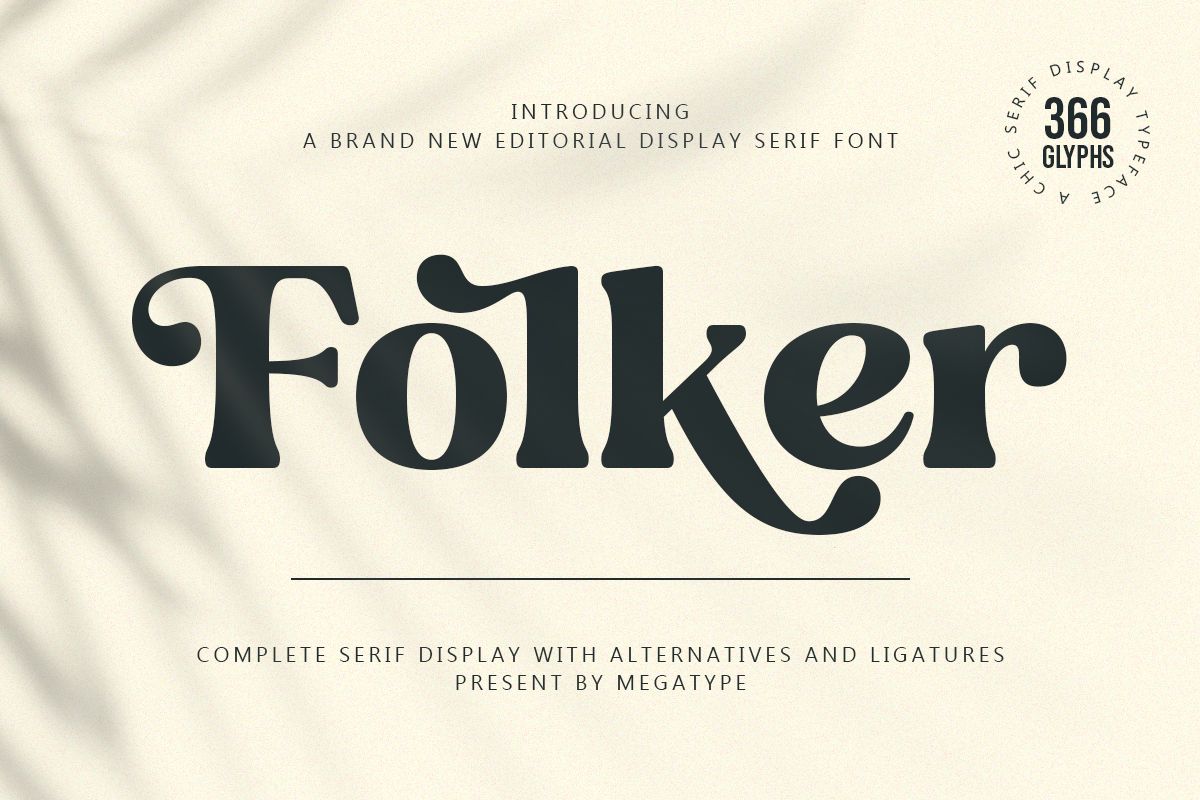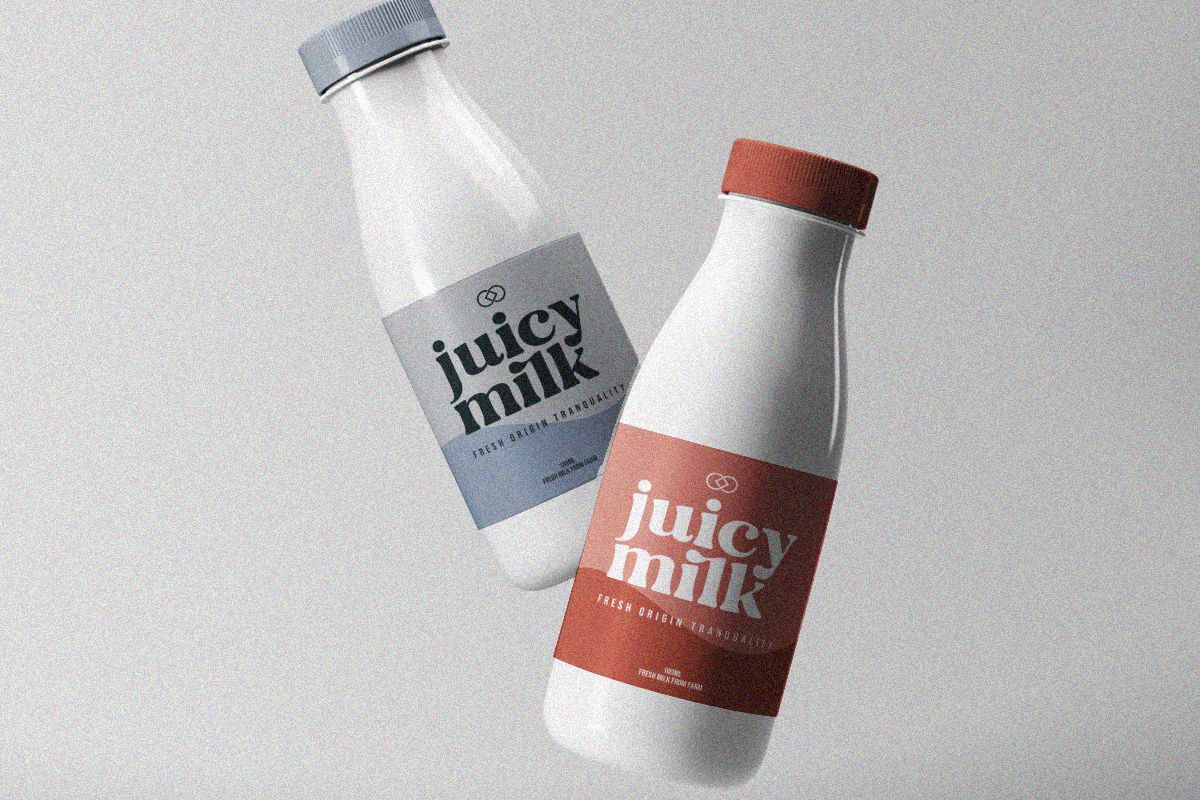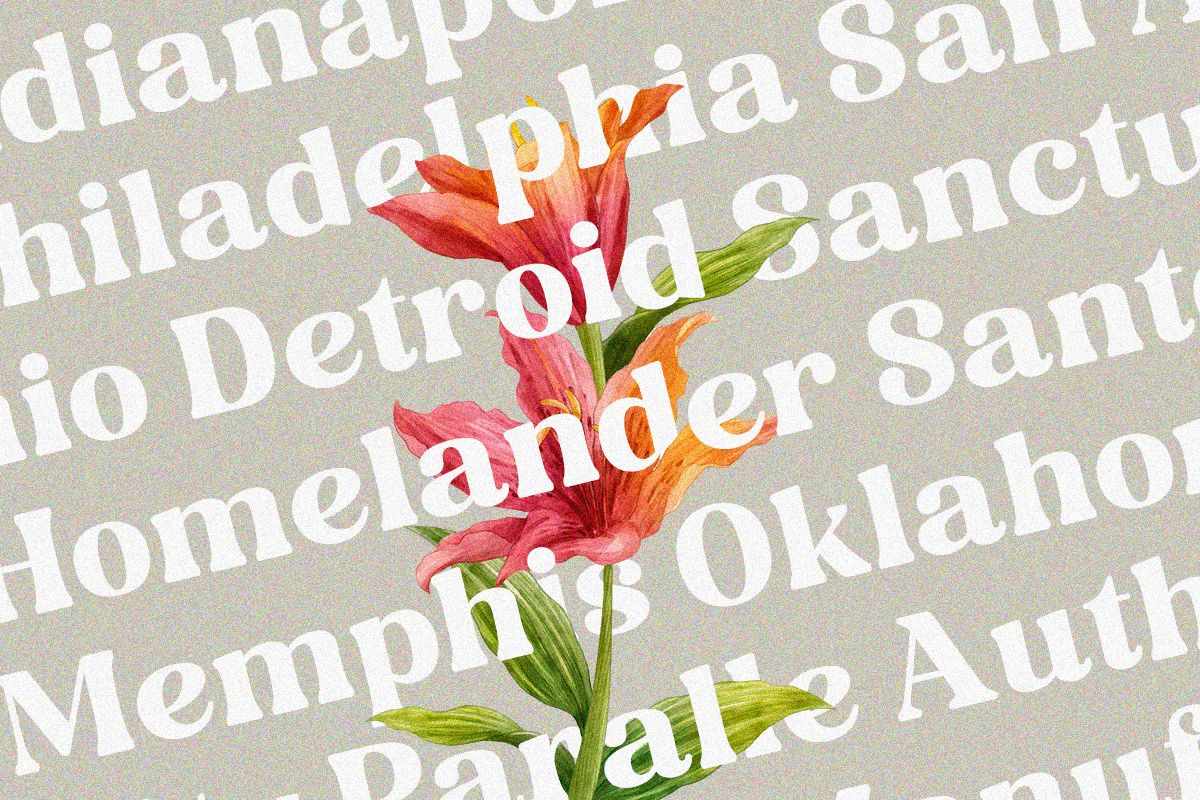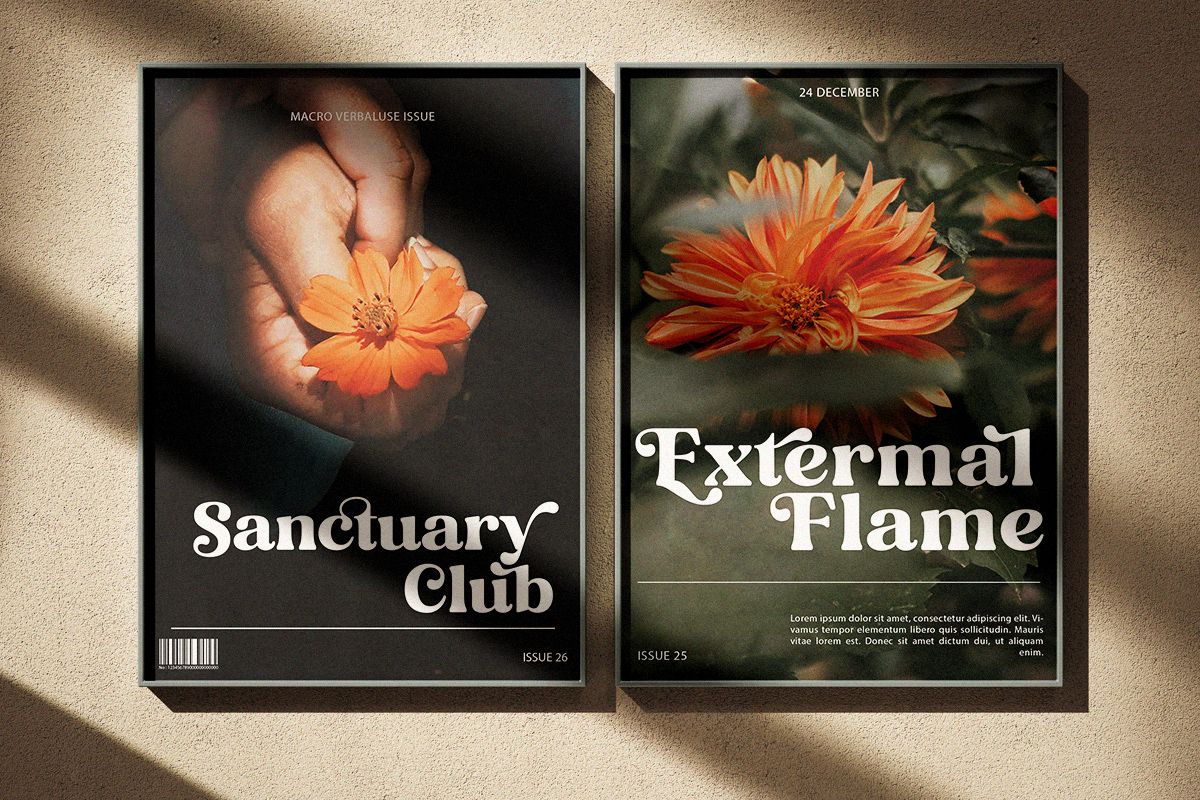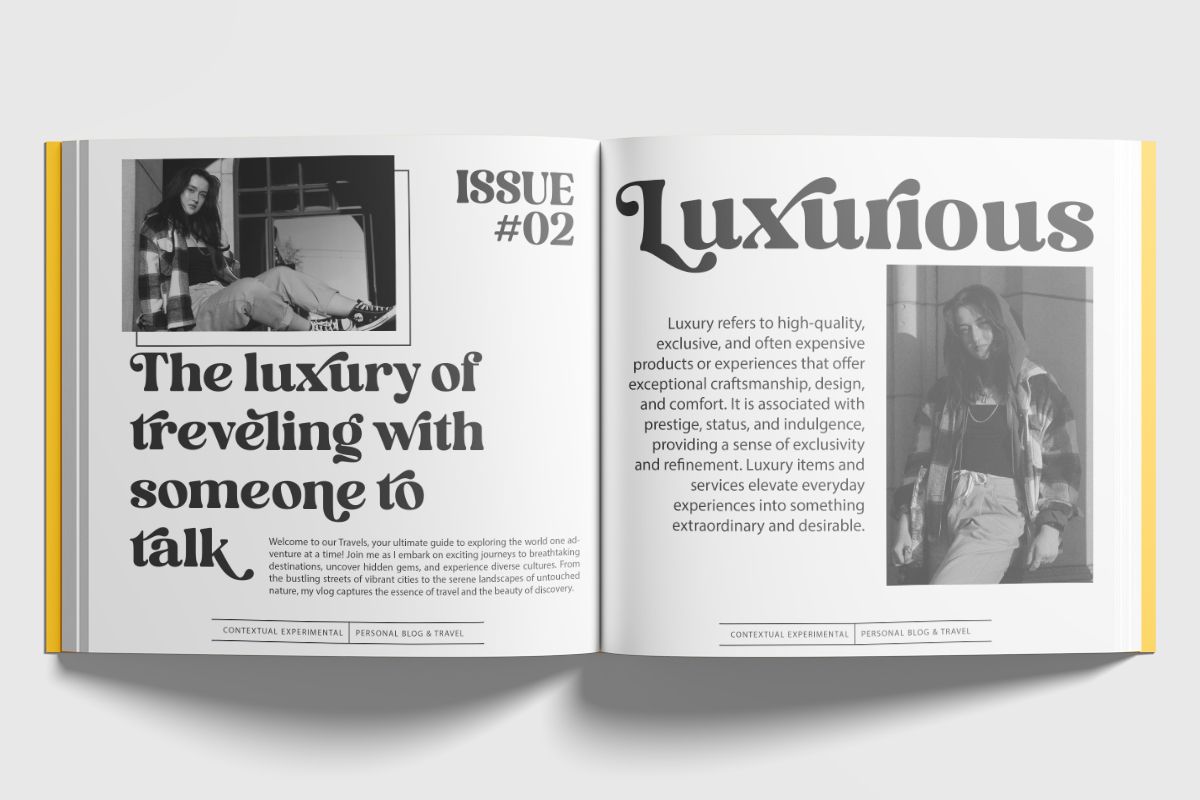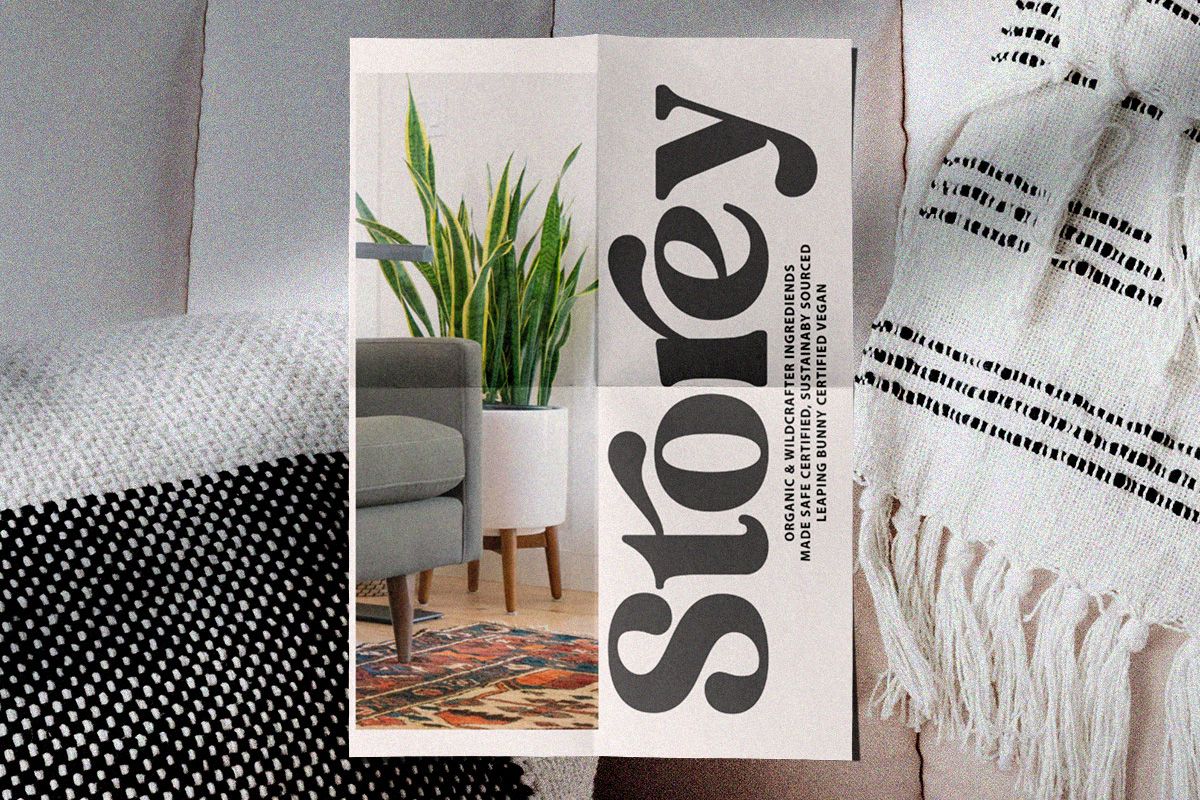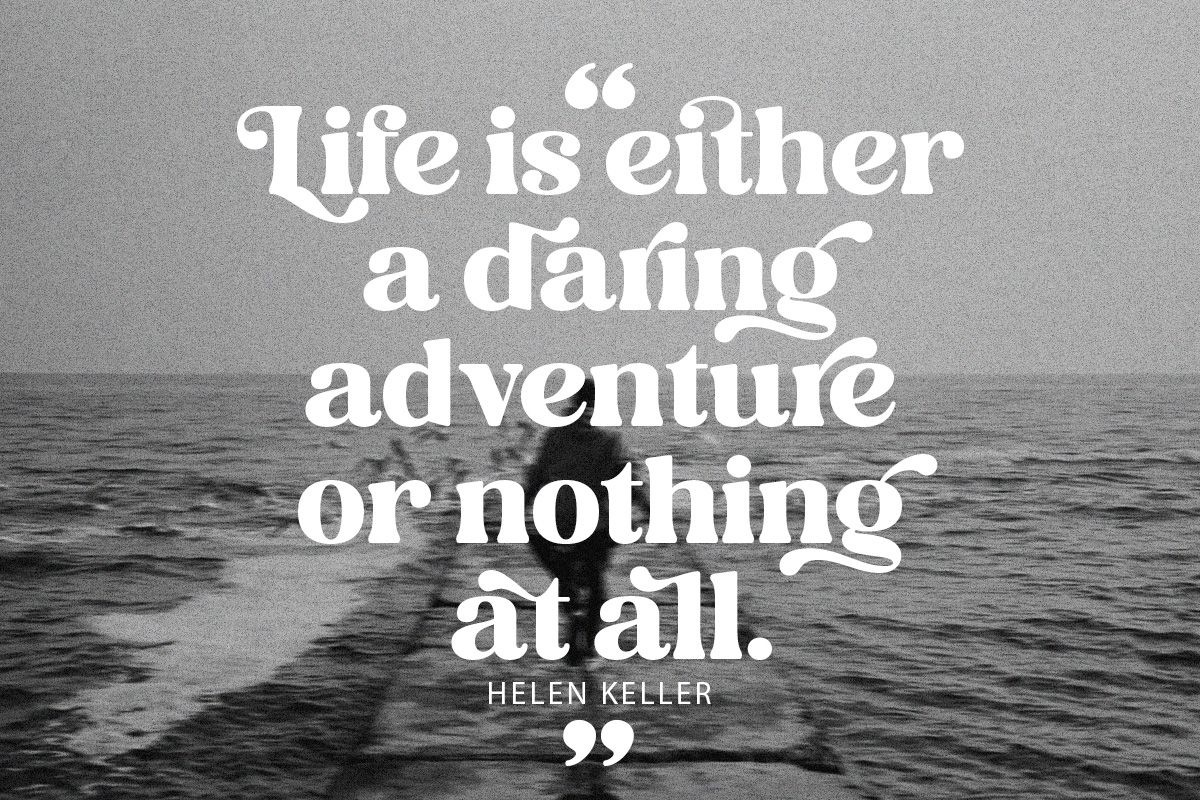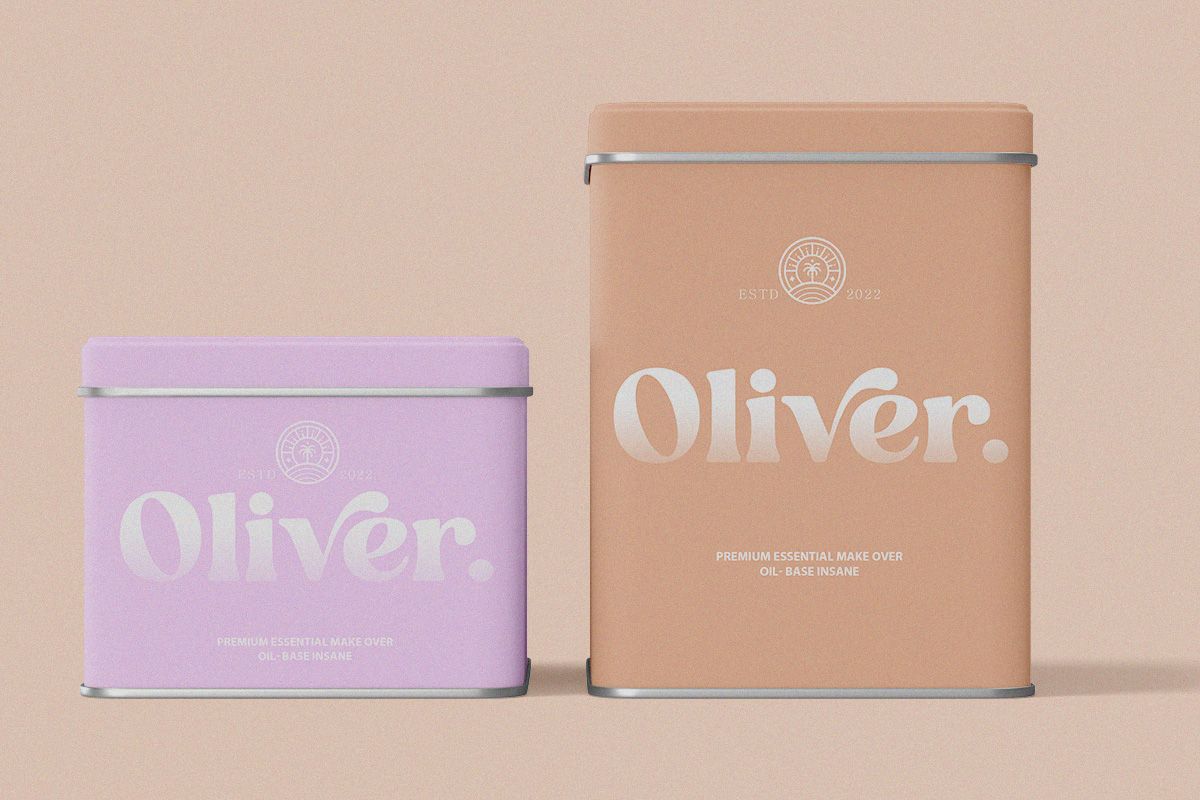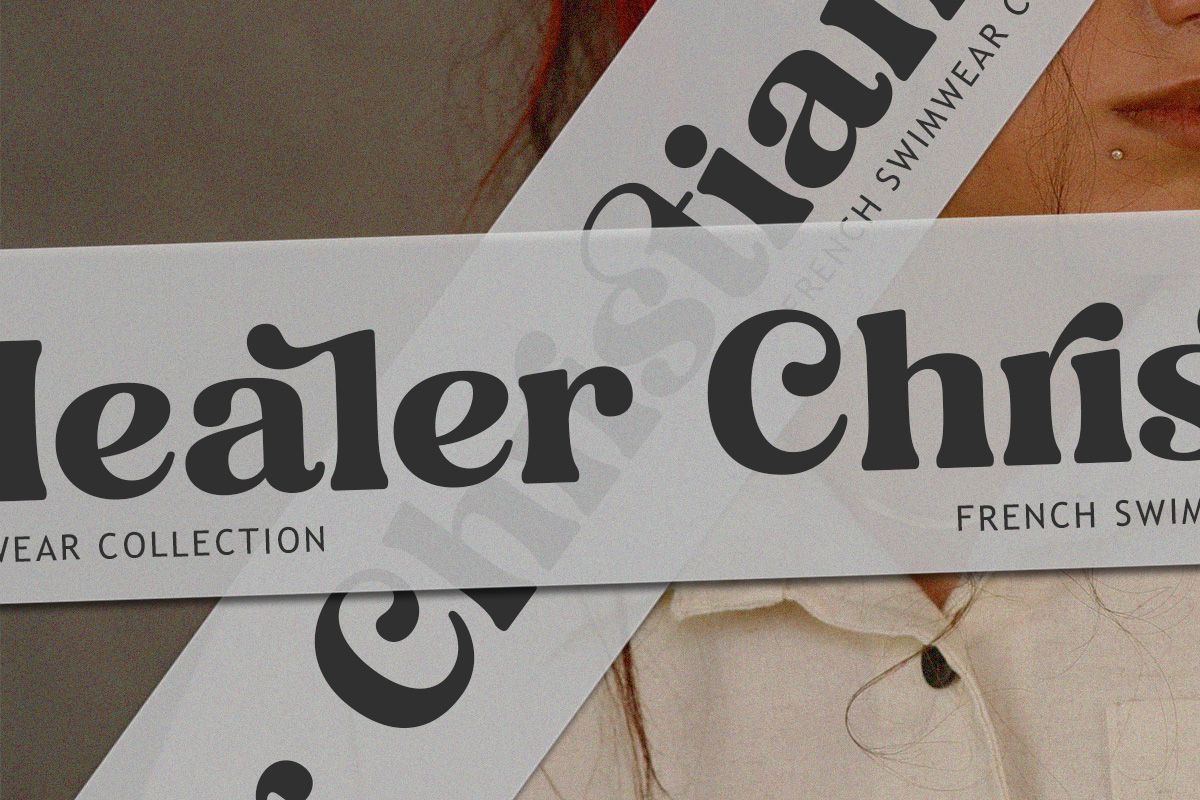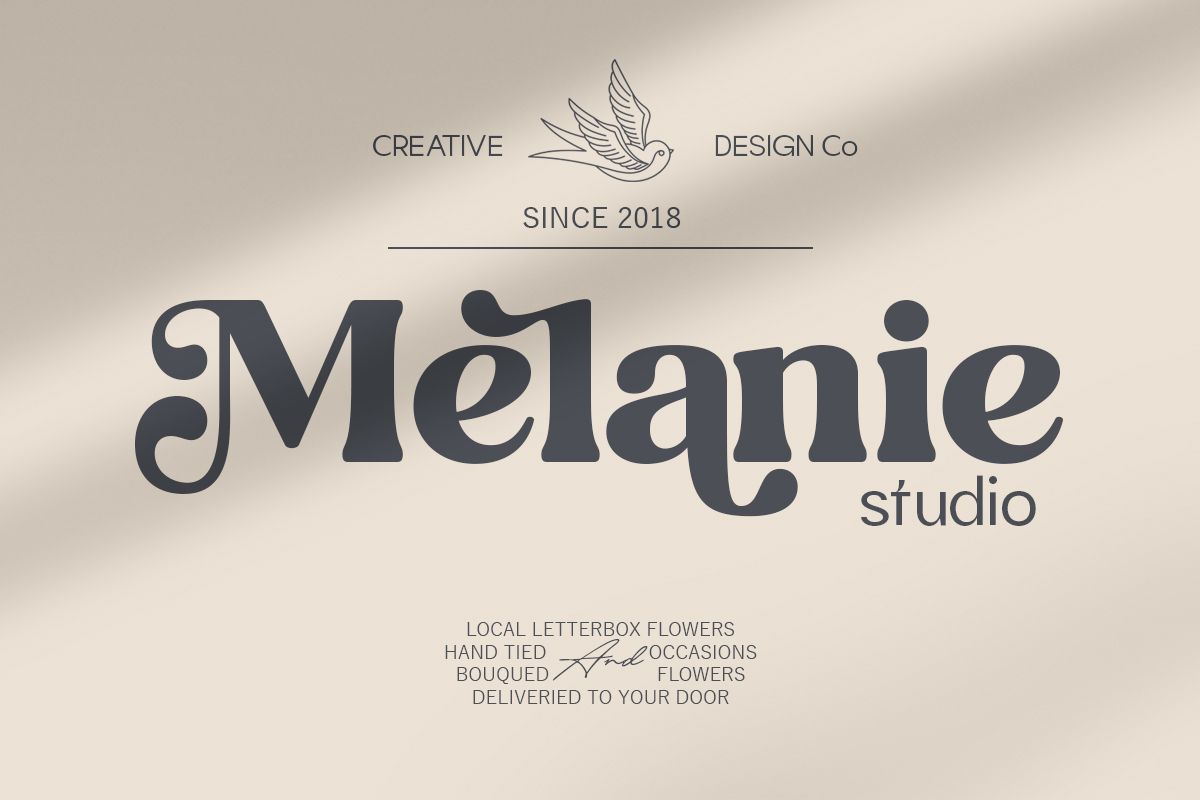
INTRODUCING Folker - Brand New Editorial Display Serif Font.
Folker is a brand new editorial display serif font. With a modern, classy, fun, unique and versatile style. It looks amazing at display size and is easy to read in text size. This font also has lots of unique alternatives and binders that will make for stunning design projects.
Folker - Brand New Editorial Display Serif Font works well for branding projects, logos, wedding designs, social media posts, advertisements, product packaging, product designs, labels, photography, watermarks, invitations, or any project you are working on.